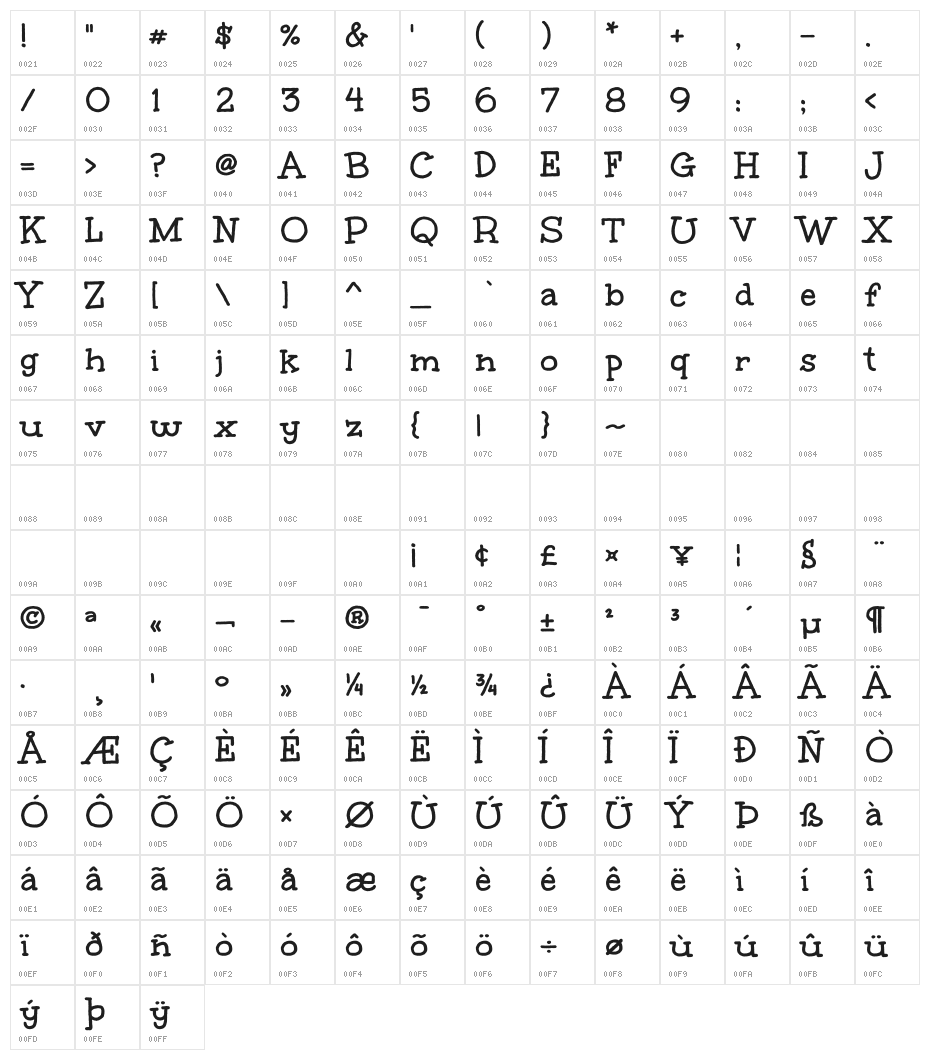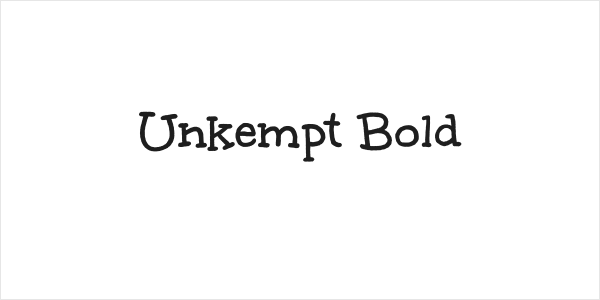
Unkempt Bold Font
Unkempt Bold Description
This font features a playful and slightly chaotic design, characterized by its irregular, hand-drawn appearance. The letters have a whimsical quality, with uneven lines and varying stroke thicknesses that give it a casual, informal feel. The uppercase and lowercase letters maintain a consistent style, with rounded edges and a slightly exaggerated, cartoonish look. The numbers and special characters follow the same quirky design, making the font suitable for creative and fun projects. Its unique style is eye-catching and adds a personal touch to any text.
| Proposed Projects | Ideal for children's books, playful branding, casual invitations, and creative posters. |